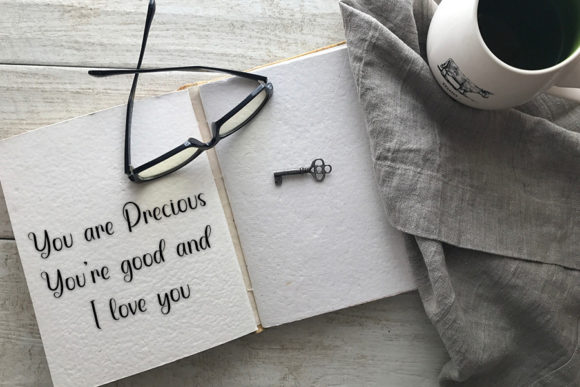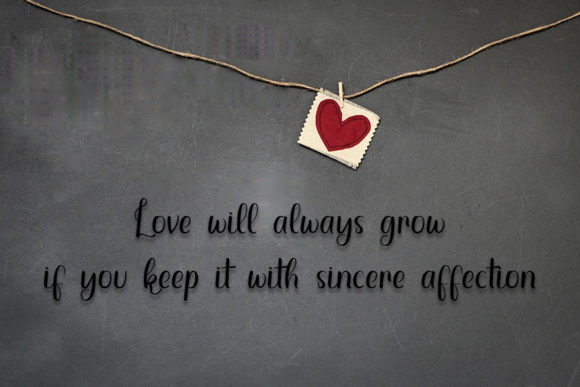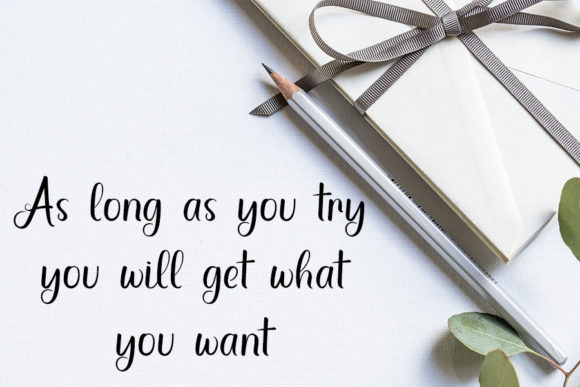
About Bunny Angel Font
Bunny Angel is a stylish handwritten font with a contemporary atmosphere and impeccable form, inspired by a timeless classic calligraphy. Balanced and varied, this font was designed to enhance the beauty of your projects.